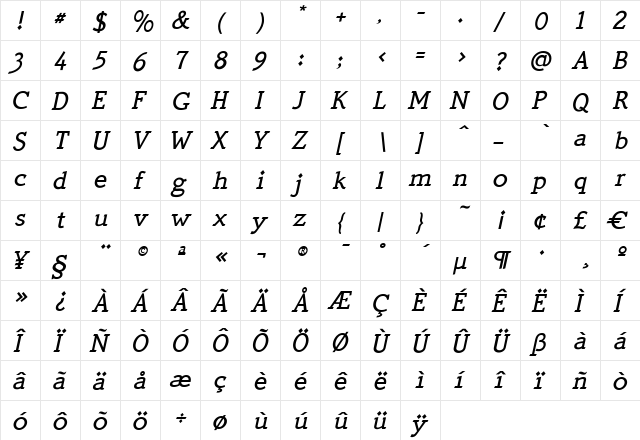
QuickType Medium Italic
Design Context for QuickType Medium Typeface
QuickType Medium takes a measured approach to typography — its balanced proportions and neutral character make it a reliable workhorse for both digital and print work. Its italic angle brings a sense of urgency and motion to the letterforms.
Pro Tip: Use QuickType Medium for emphasis, pull quotes, and subheadings where its slanted energy can add rhythm to the layout.